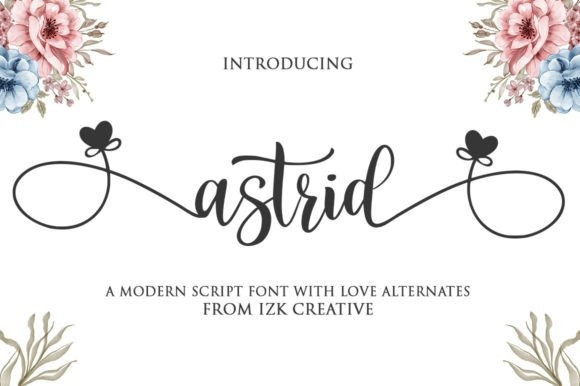
Astrid Font
Astrid Font is an exquisite handwritten script font, masterfully designed to become a true favorite. It maintains its classy calligraphic influences while feeling contemporary and fresh. Fall in love with it and bring your projects to the highest levels!